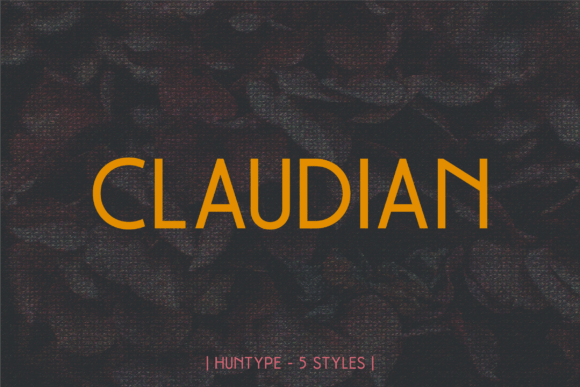
Discover the Claudian Font: A Modern and Versatile Typeface
The Claudian font is a modern and versatile font family that has gained popularity among designers and typographers. This font family is a blend of clean geometric forms and subtle sophistication, making it an ideal choice for a wide range of design applications. In this article, we will explore the features and benefits of the Claudian font, and why it’s becoming a go-to choice for designers.
A Harmony of Sharp Lines and Gentle Curves
The Claudian font family is characterized by its precise letterforms and contemporary aesthetic. The font’s design is a harmony of sharp lines and gentle curves, which gives it a unique and distinctive look. The clean geometric forms and subtle sophistication of the font make it perfect for designs that require a modern and elegant look.
Key Features of the Claudian Font
- Modern and Versatile: The Claudian font is a modern and versatile font family that can be used in a wide range of design applications.
- Clean Geometric Forms: The font features clean geometric forms that give it a precise and contemporary look.
- Subtle Sophistication: The font has a subtle sophistication that makes it perfect for designs that require an elegant look.
- Five Font Styles: The Claudian font family includes five font styles: Thin, Light, Regular, Bold, and Black.
The Claudian Font Family: Five Fonts in One
The Claudian font family includes five font styles: Thin, Light, Regular, Bold, and Black. Each font style has its own unique characteristics and can be used in different design applications.
Claudian Black: Bold and Impactful
Claudian Black is the boldest and most impactful font style in the Claudian font family. It’s perfect for commanding headlines and grabbing the attention of the reader. The font’s bold and strong lines make it ideal for designs that require a powerful and assertive look.
Claudian Bold: Strong and Persuasive
Claudian Bold is a strong and persuasive font style that’s perfect for key messages and important information. The font’s bold lines and confident look make it ideal for designs that require a sense of authority and reliability.
Claudian Regular: Balanced and Versatile
Claudian Regular is a balanced and versatile mid-weight font that’s perfect for diverse applications. The font’s clean lines and elegant look make it ideal for designs that require a sense of sophistication and refinement.
Claudian Light: Subtle and Elegant
Claudian Light is a subtle and elegant font style that’s perfect for refined designs. The font’s light lines and delicate look make it ideal for designs that require a sense of elegance and sophistication.
Claudian Thin: Delicate and Sophisticated
Claudian Thin is a delicate and sophisticated font style that’s perfect for designs that require a minimalist touch. The font’s thin lines and subtle look make it ideal for designs that require a sense of simplicity and elegance.
Why Choose the Claudian Font?
The Claudian font is a popular choice among designers and typographers due to its unique features and benefits. Here are some reasons why you should choose the Claudian font for your next design project:
Versatility
The Claudian font family includes five font styles that can be used in a wide range of design applications. Whether you’re designing a logo, brochure, or website, the Claudian font has got you covered.
Legibility
The Claudian font is designed with legibility in mind. The font’s clean lines and precise letterforms make it easy to read, even at small sizes.
Elegance
The Claudian font has a subtle sophistication that makes it perfect for designs that require an elegant look. The font’s delicate lines and refined aesthetic make it ideal for luxury brands and high-end designs.
Modernity
The Claudian font is a modern font family that’s perfect for designs that require a contemporary look. The font’s clean geometric forms and precise letterforms make it ideal for designs that require a fresh and modern aesthetic.
The Claudian font is a modern and versatile font family that’s perfect for a wide range of design applications. With its clean geometric forms, subtle sophistication, and precise letterforms, the Claudian font is an ideal choice for designers who want to create elegant and modern designs. Whether you’re designing a logo, brochure, or website, the Claudian font is a great choice.